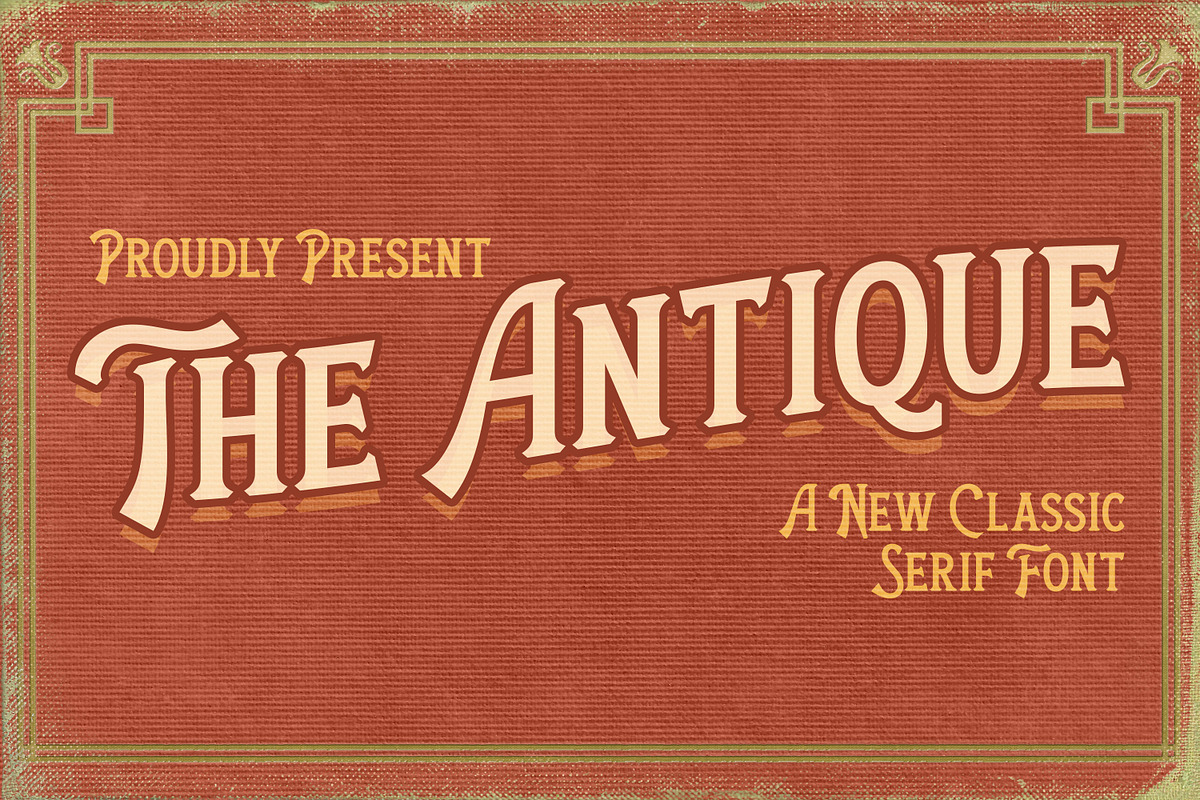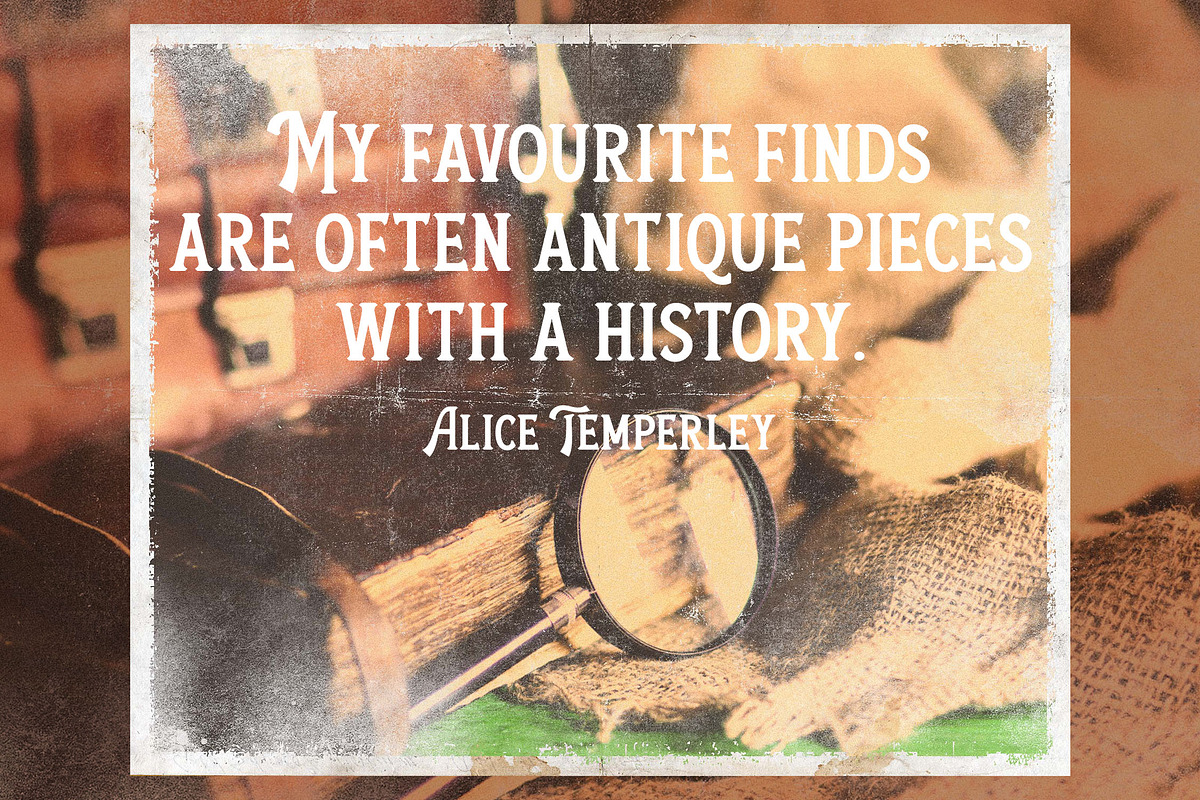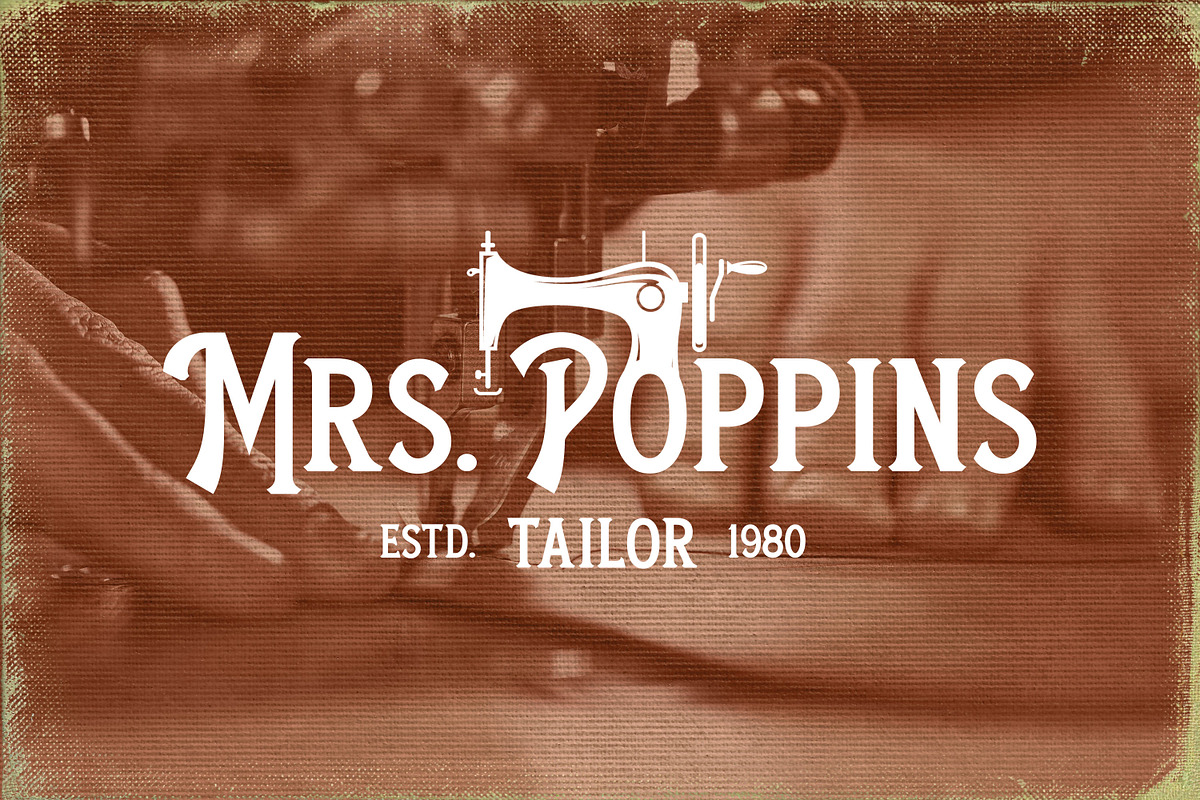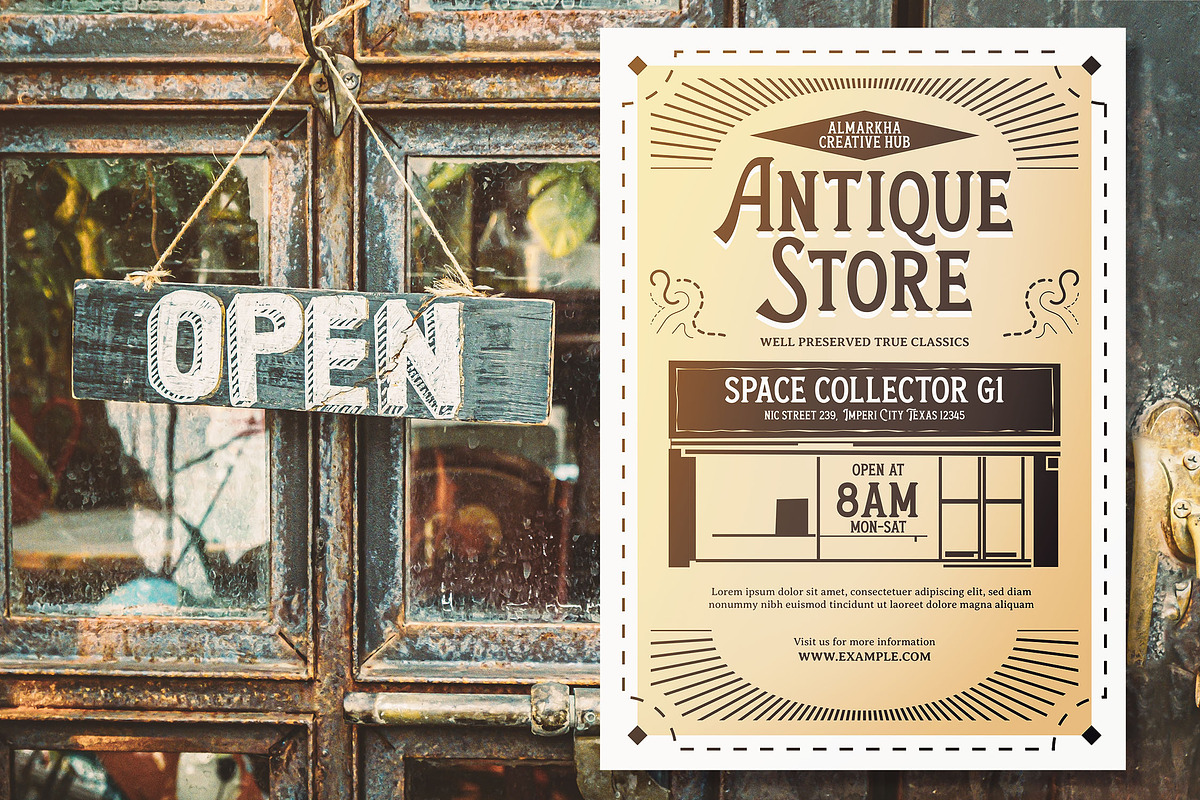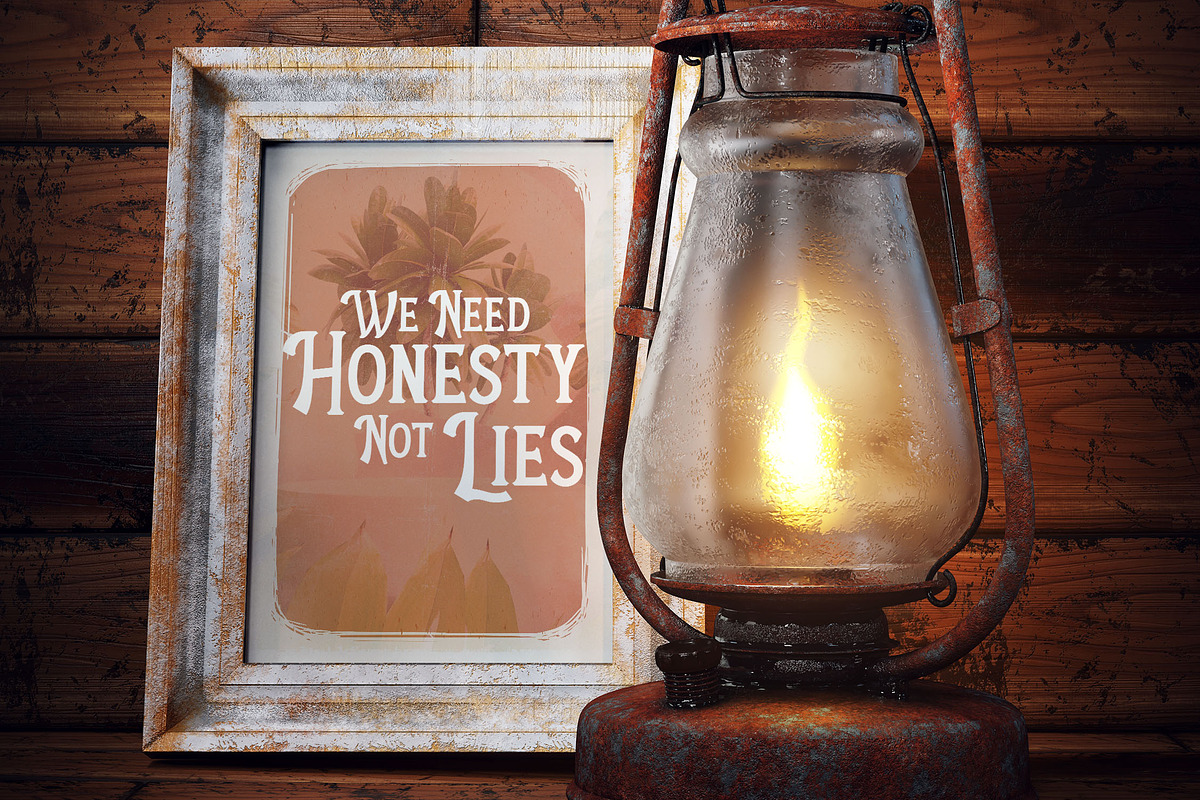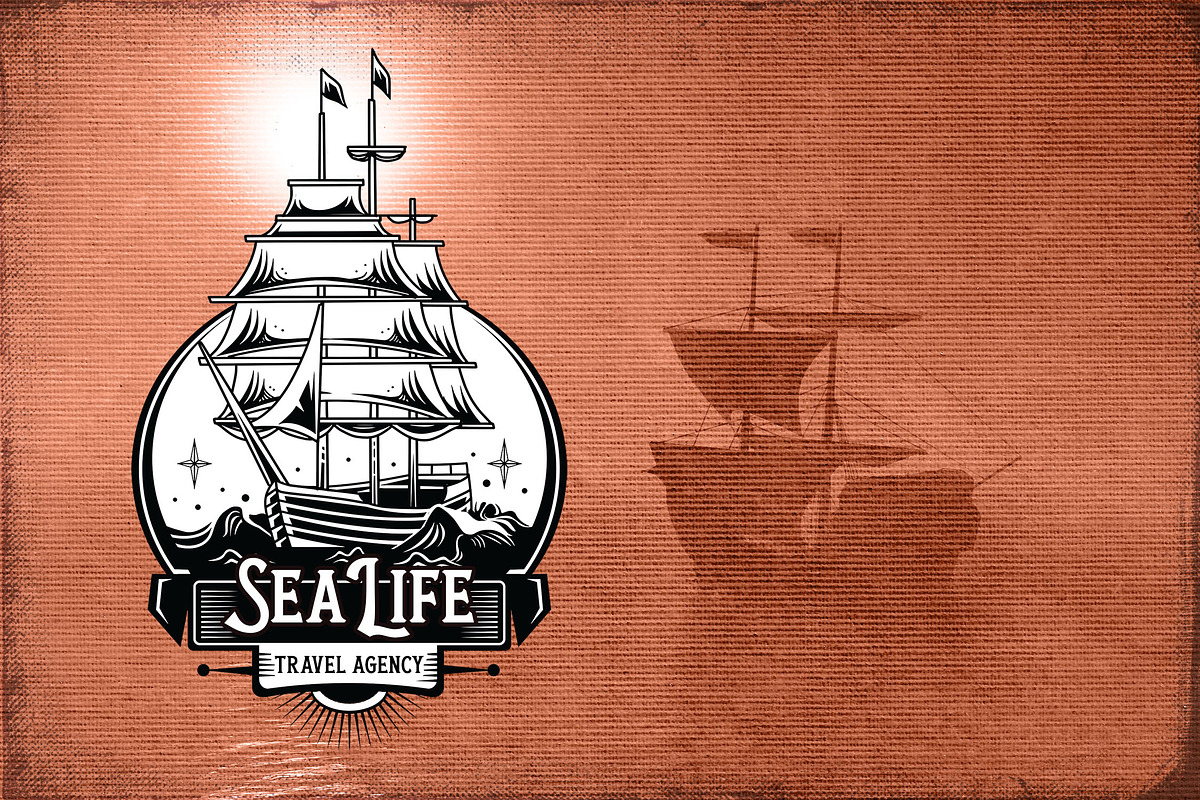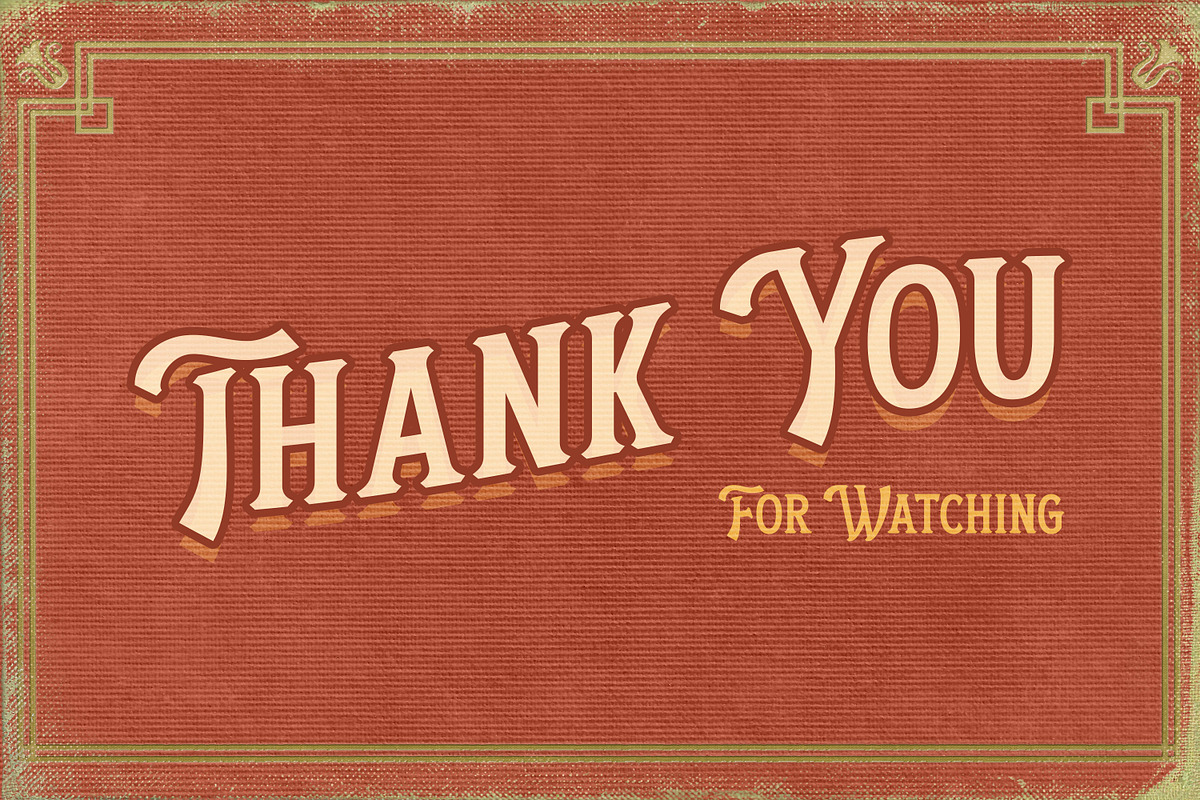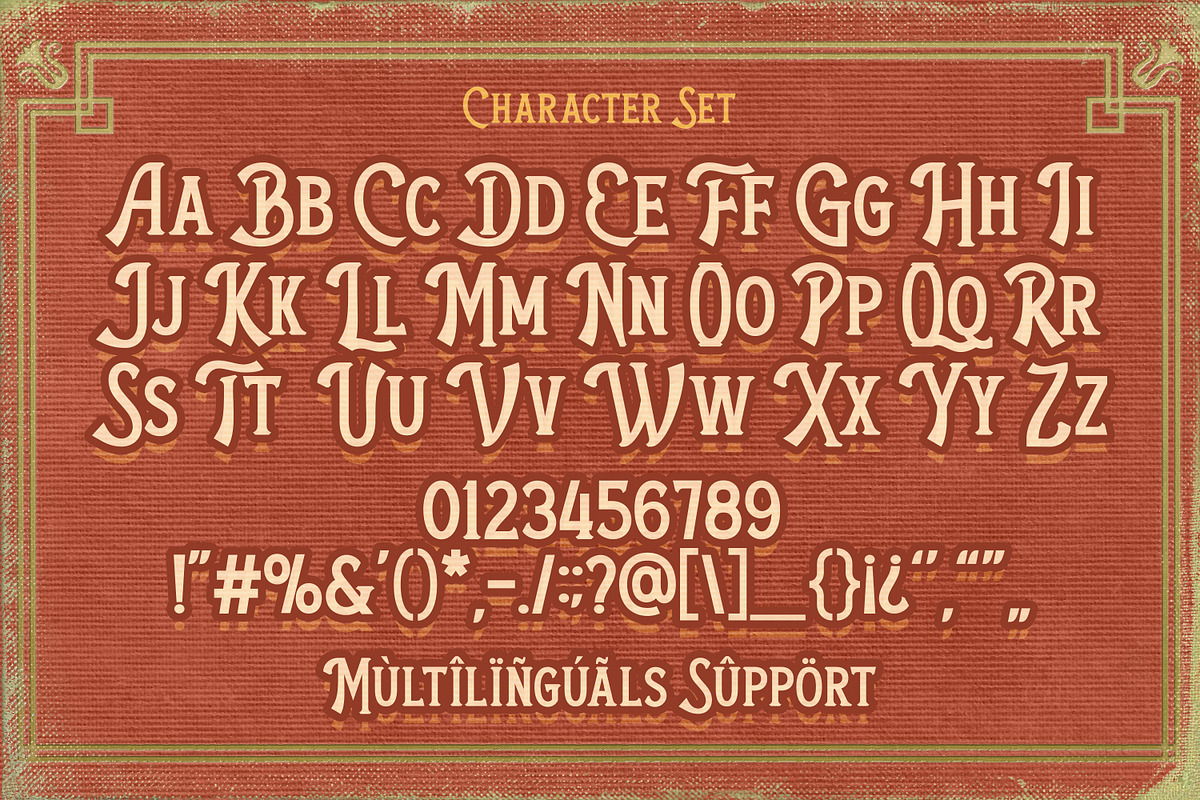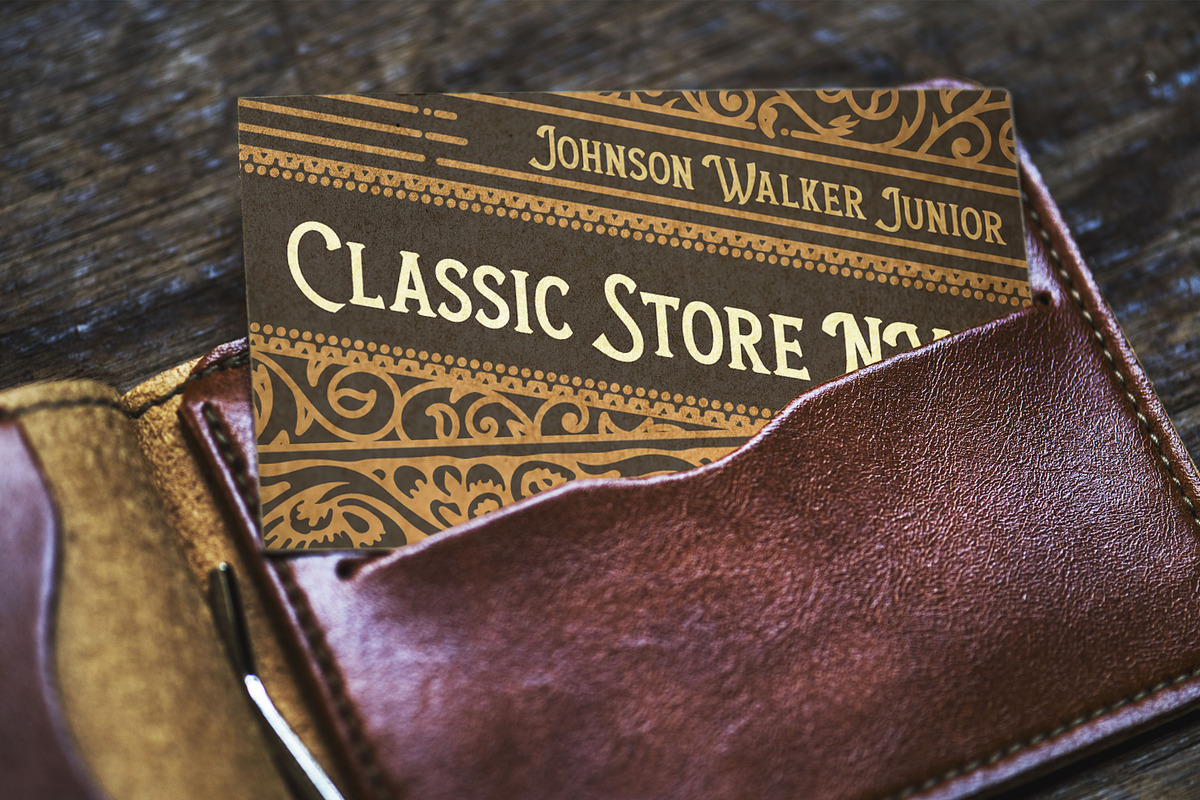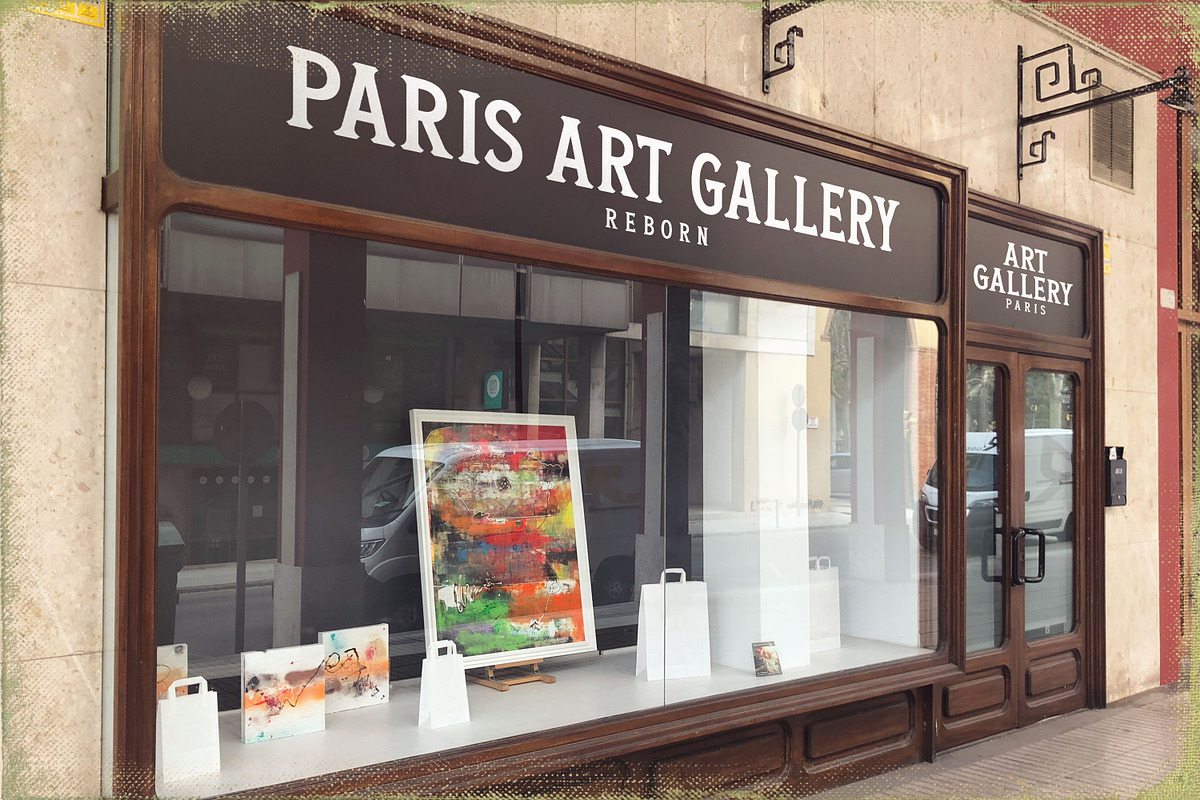
The Antique - A New Classic Serif
The Antique - Vintage Serif is a inspired by classic fonts with retro style combined with decorative Serif style nuances of western back to the era of the 70's - 80's, a style that is timeless
The Antique is perfect for vintage social media posts, Craft , Product packaging, product designs, label, branding projects, logo, advertisements, watermark, invitation, stationery and any projects